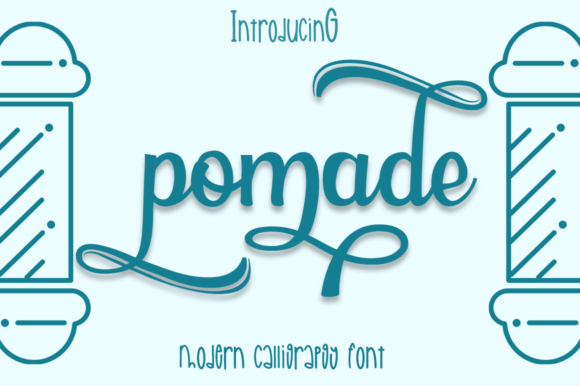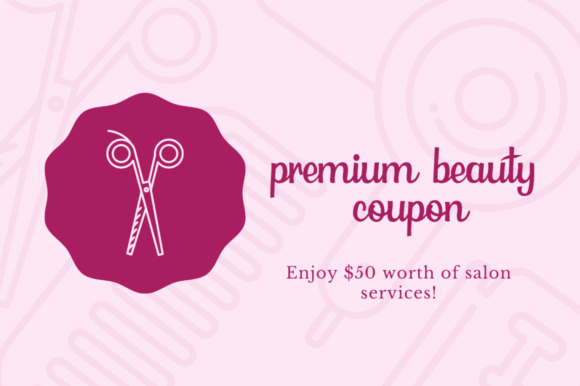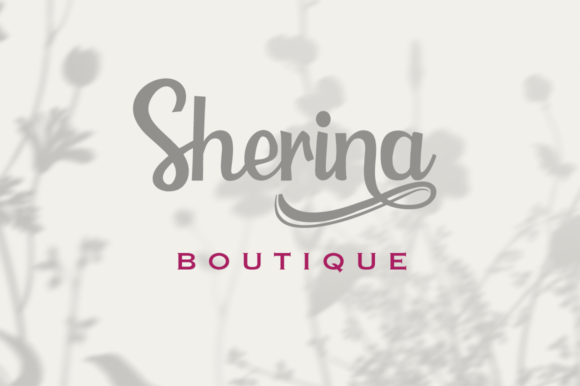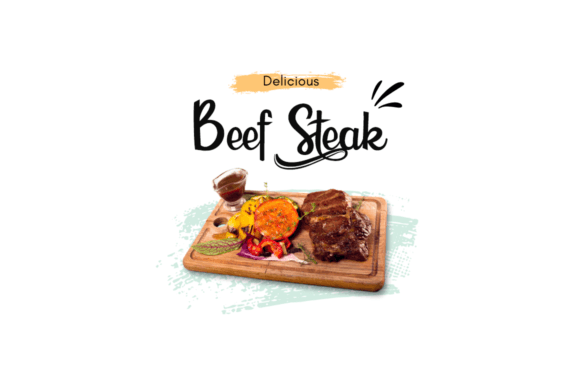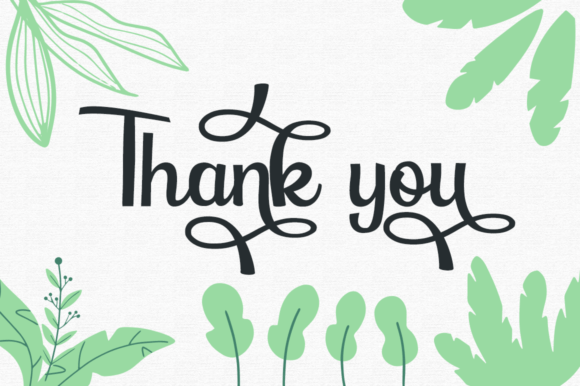
Introduction to Pomade Font Font
Fonts play a crucial role in design, and the Pomade Font font is a typeface that brings both character and versatility to any project. Whether you’re working on a branding project, a website, or a print design, the Pomade Font font offers a unique style that can elevate your work.
Pomade is a modern calligraphy design with a casual look and beautiful swashes.
It can be used for various purposes such as logos, product packaging, wedding invitations, branding, headlines, signage, labels, signatures, book covers, posters, quotes, and more .
Key Features of Pomade Font Font
Why Choose Pomade Font Font?
The Pomade Font font is more than just a typeface – it’s a design tool that helps you communicate your message with style and clarity. Its unique character set and versatile design make it suitable for a wide range of applications, from elegant invitations to bold headlines.
With its carefully crafted letterforms and balanced proportions, the Pomade Font font ensures readability and visual appeal across all mediums.
What makes Pomade Font font special?
The Pomade Font font stands out with its unique design, exceptional readability, and versatility across various design applications.